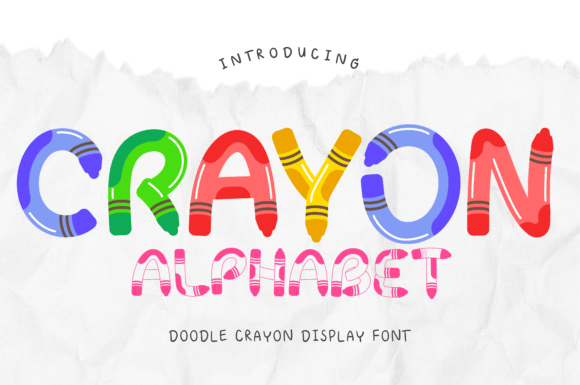
Unleashing the Power of Color: A Creative Designer’s Dream
Who among us hasn’t sat at a desk, surrounded by scraps of paper, glue sticks, and crayons, trying to bring a brilliant idea to life? For many of us, that spark of creativity is what drives us to create, to design, and to bring joy to others through our work. As designers, we’re always on the lookout for the perfect font to match our vision – and that’s where the Crayon Alphabet Font comes in.
This delightful font is more than just a pretty face; it’s a versatile tool that can add a pop of color and whimsy to any design. From kids’ projects to school materials, and from greeting cards to social media graphics, the Crayon Alphabet Font is the perfect addition to any designer’s toolkit. With its bright, playful letters, this font is sure to bring a smile to anyone’s face – and that’s what makes it so valuable to designers looking to add a little extra magic to their work.
Crayon Alphabet Font Key Features
- Unique Characteristics: The Crayon Alphabet Font features a distinctive, hand-drawn design with a playful, whimsical feel, making it perfect for children’s books, educational materials, and other projects requiring a youthful, energetic vibe.
- Font Style: The font includes uppercase and lowercase letters, as well as numbers and punctuation marks, with a range of font weights and styles to suit different design needs.
Crayon Alphabet Font Review
I recently had the chance to work with the Crayon Alphabet Font, and I must say it’s a fun and playful addition to any design project. ✨ The font’s rounded edges and childlike feel make it perfect for creating a whimsical atmosphere.
Some of the things that work well with this font include:
- Its versatility – the Crayon Alphabet Font can be used for both digital and print designs.
- Its range of weights – from light to bold, the font offers a variety of options to suit different design needs.
- Its ease of use – the font is simple to apply and customize in most design software.
- ⚠️ Limited expressiveness – the font’s playful feel may not be suitable for more formal or professional designs.
- ⚠️ Limited language support – the font may not be available in as many languages as other fonts.
Overall, I think the Crayon Alphabet Font is a great choice for designers looking to add a touch of whimsy to their projects. While it may not be the best fit for every design, it’s definitely a fun and creative option to consider.
Tips: Use the Crayon Alphabet Font for children’s party invitations, educational materials, or any design that requires a playful touch.
Tips: Use the Crayon Alphabet Font for creative projects, such as illustrations or graphics.
Tips: Use the Crayon Alphabet Font for presentations, reports, or any document that requires a playful touch.
The Crayon Alphabet Font is ideal for:
- Educational materials, such as worksheets and lesson plans.
- Creative projects, such as illustrations and graphics.
- Presentations and reports that require a playful touch.
Q: What is the recommended font size and line height for the Crayon Alphabet Font?
The recommended font size for the Crayon Alphabet Font is between 24-48 points. For optimal readability, we recommend a line height of at least 1.5 times the font size. This will ensure that the font is legible and visually appealing in a variety of contexts.